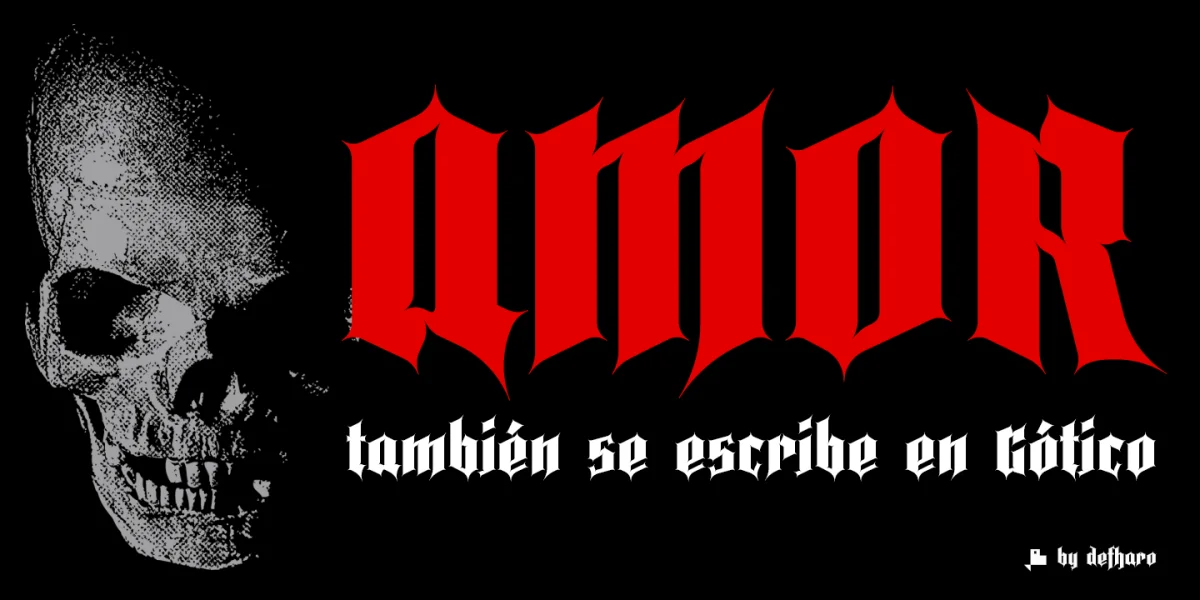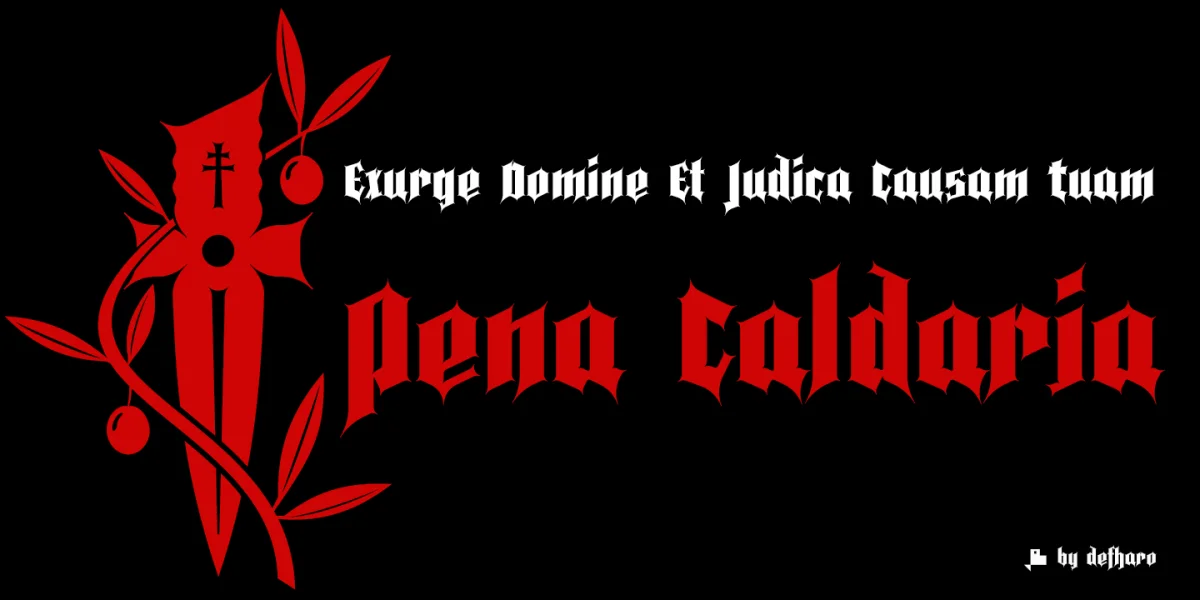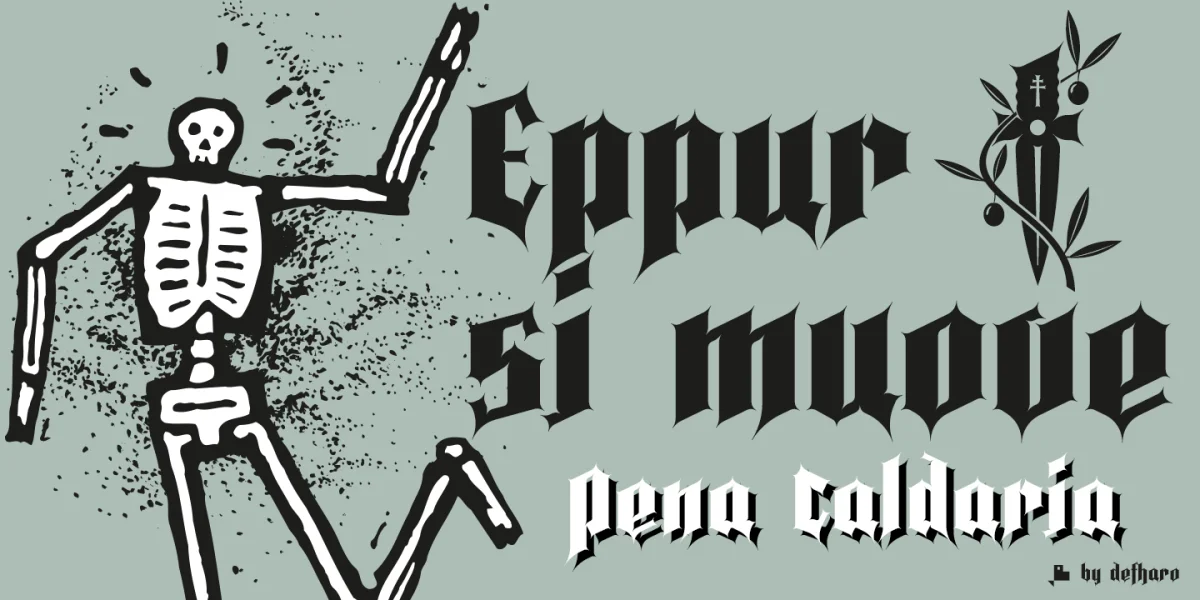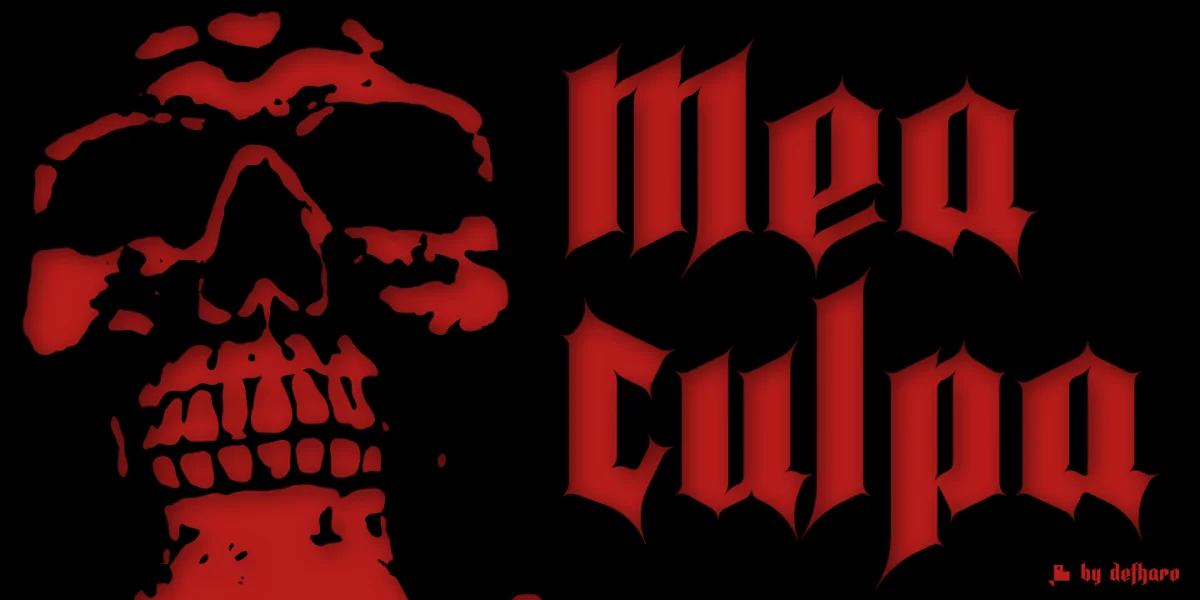
Pena Calvaria is a decorative and condensed Gothic typeface of intermediate style between the Blackletter and the Fraktur style, it is a very expressive typeface due to the pen finials and the carefully made interior curves that give a contemporary look to a style of fonts that five centuries after his birth they are still topical.
Pena Calvaria owes its name to the so-called Ordalía del Agua and completes a series of 3 fonts dedicated to this concept: Ordeal, Farisea and Pena Calvaria